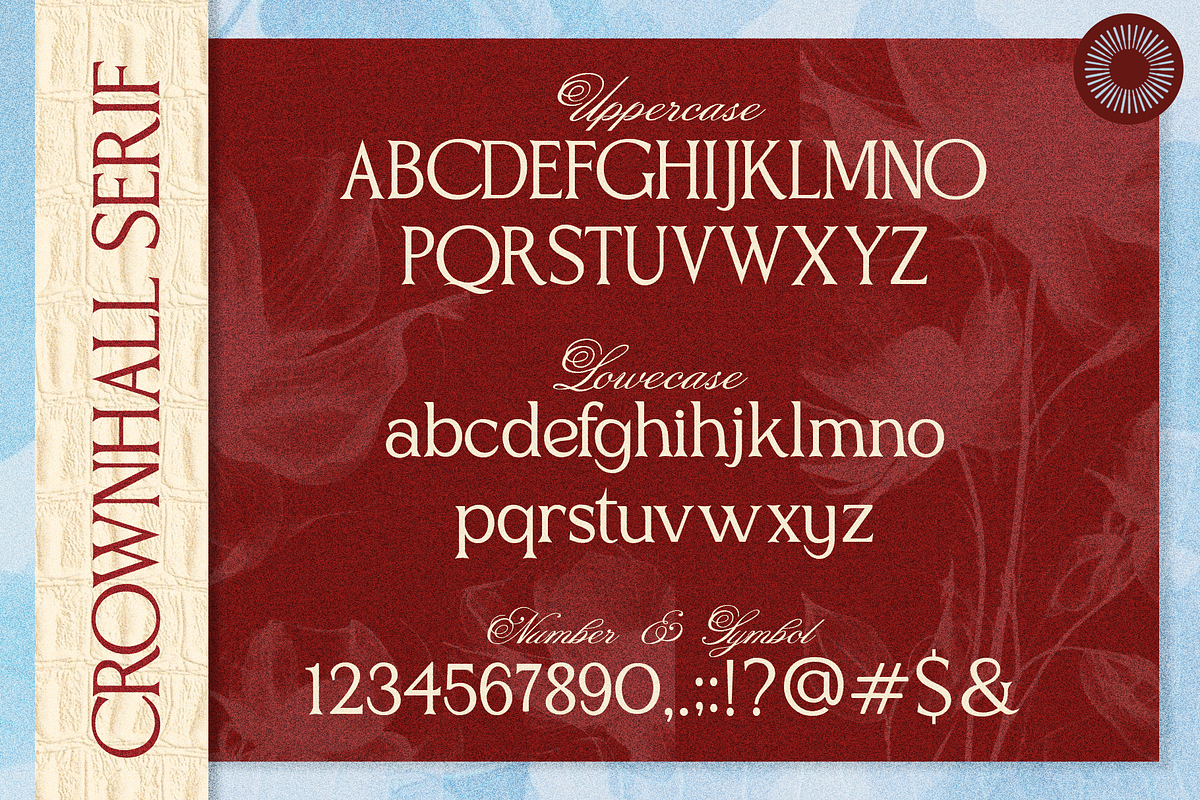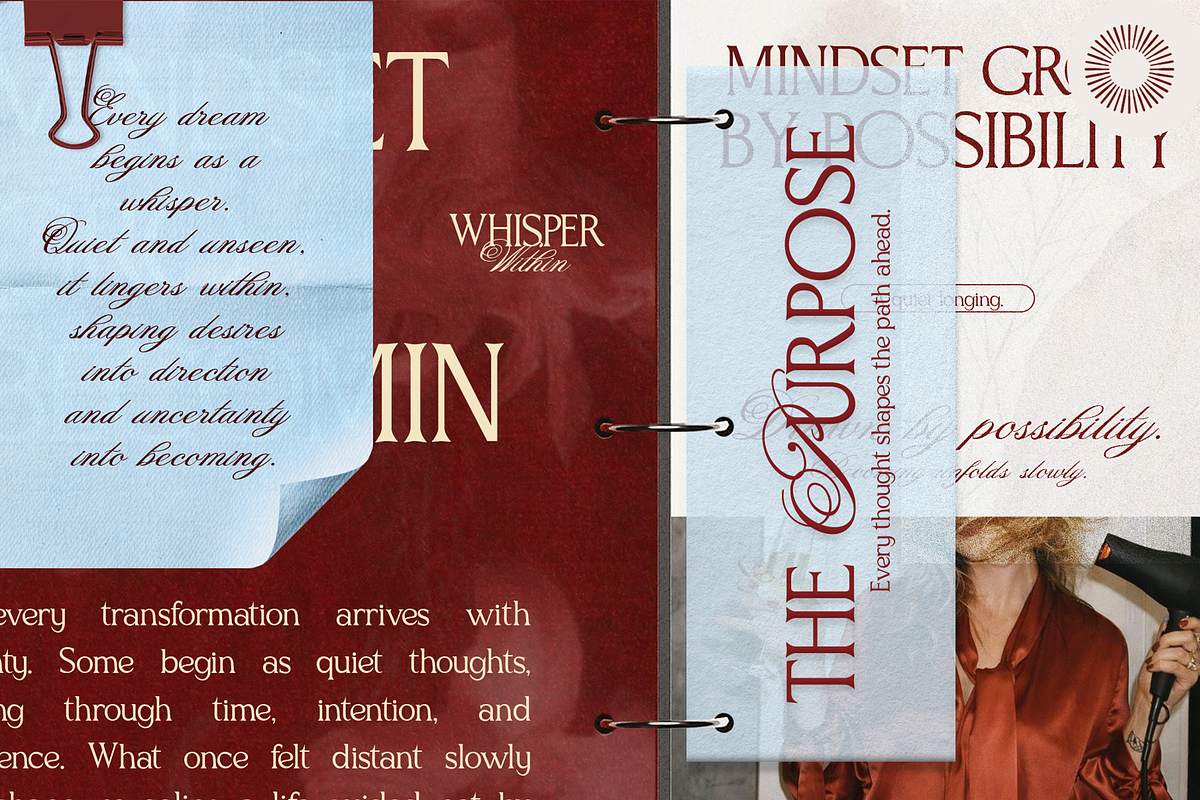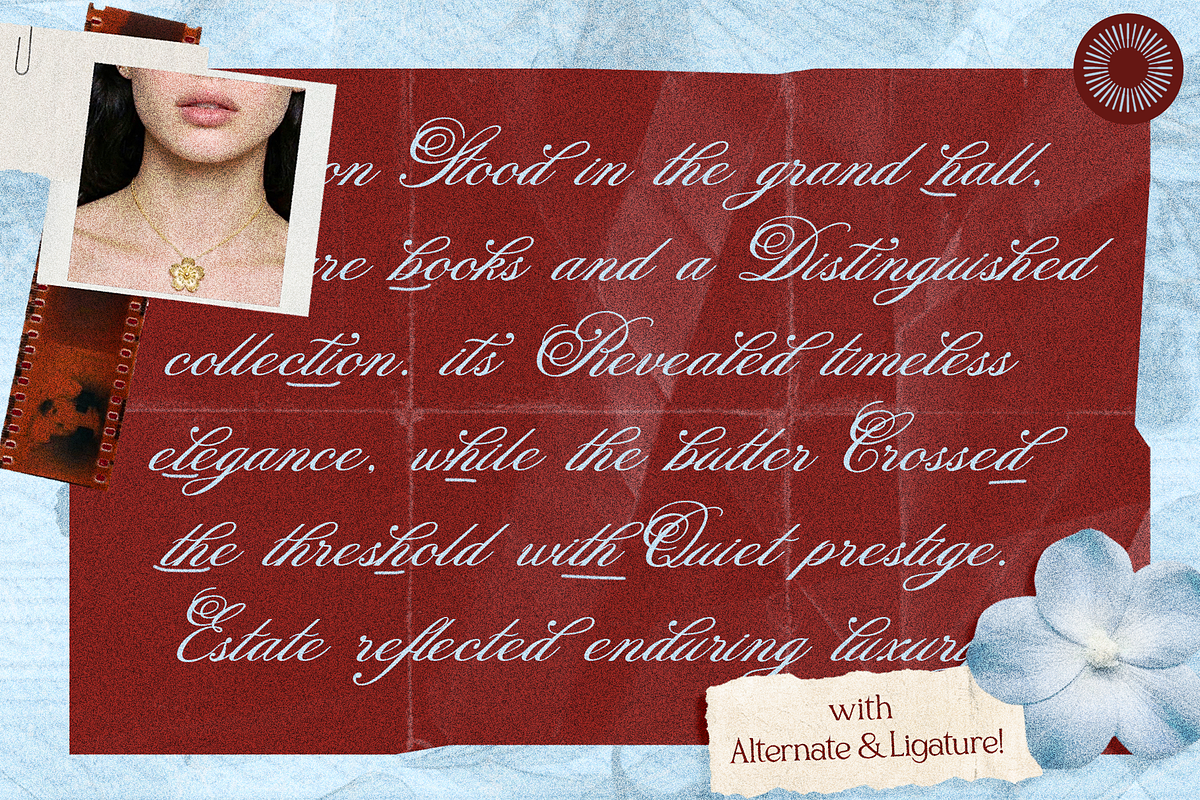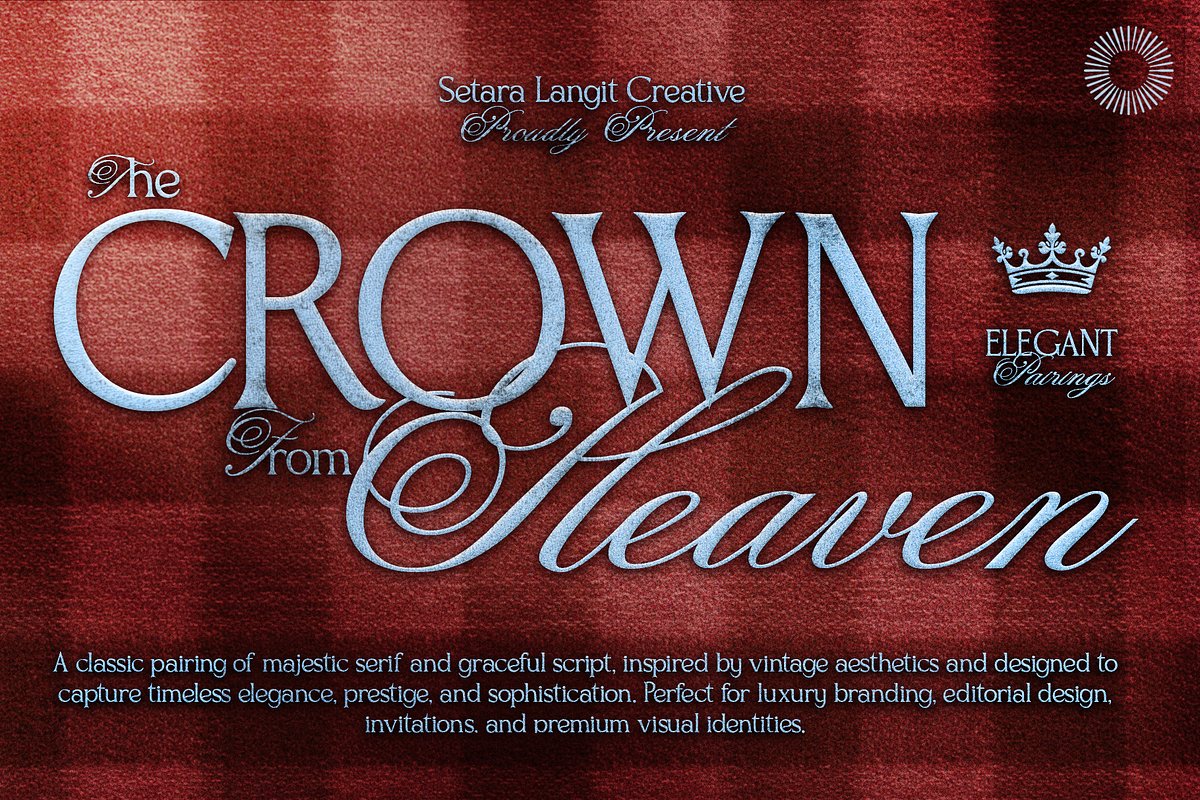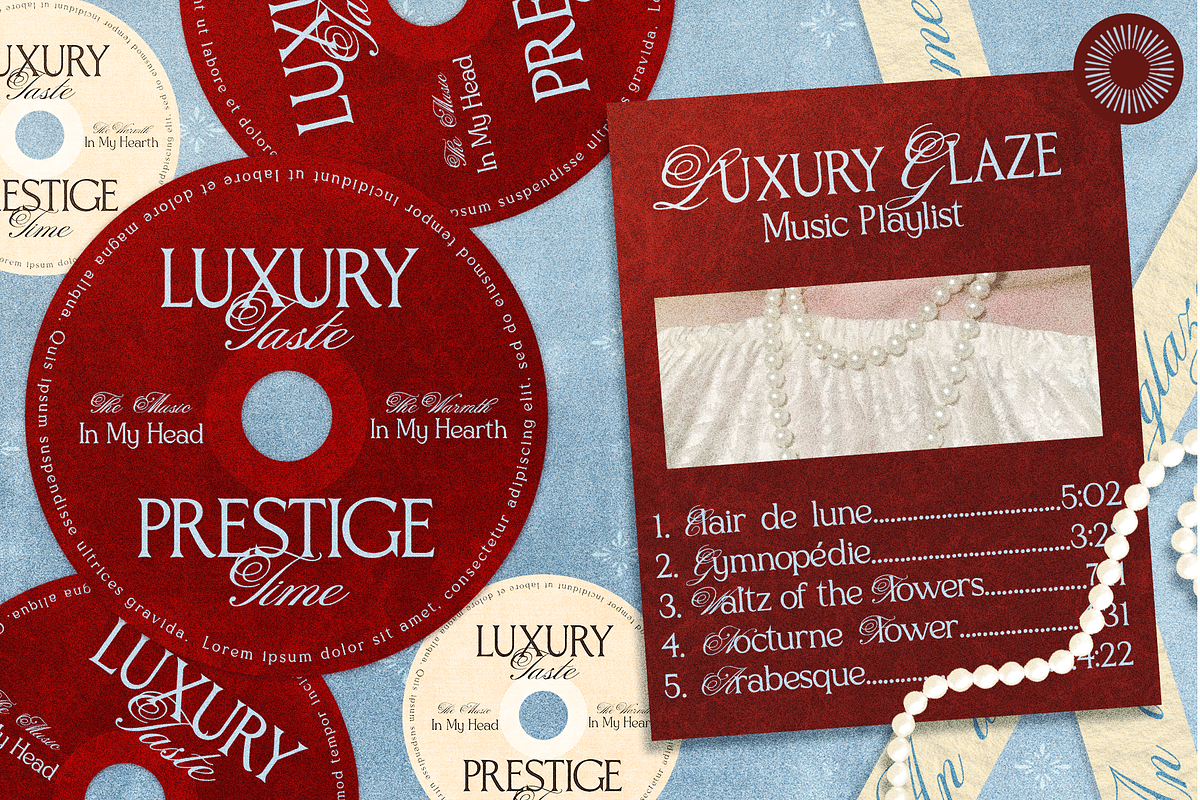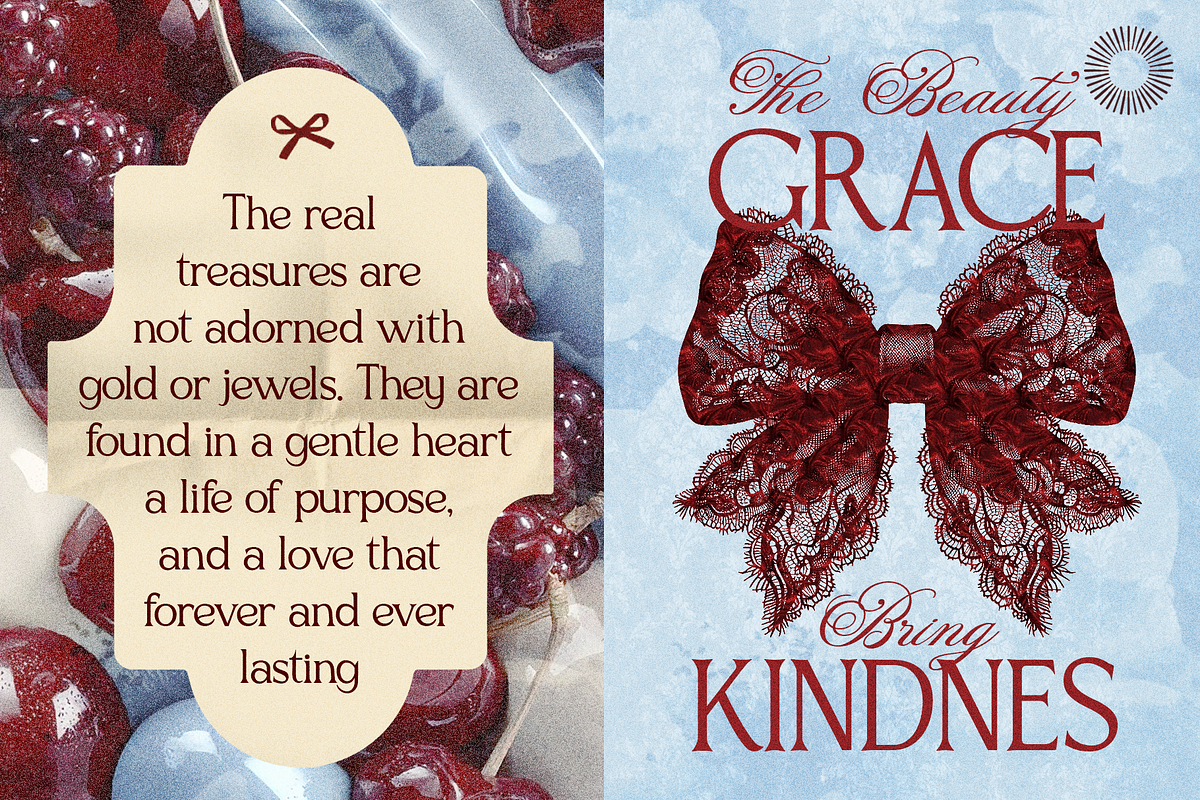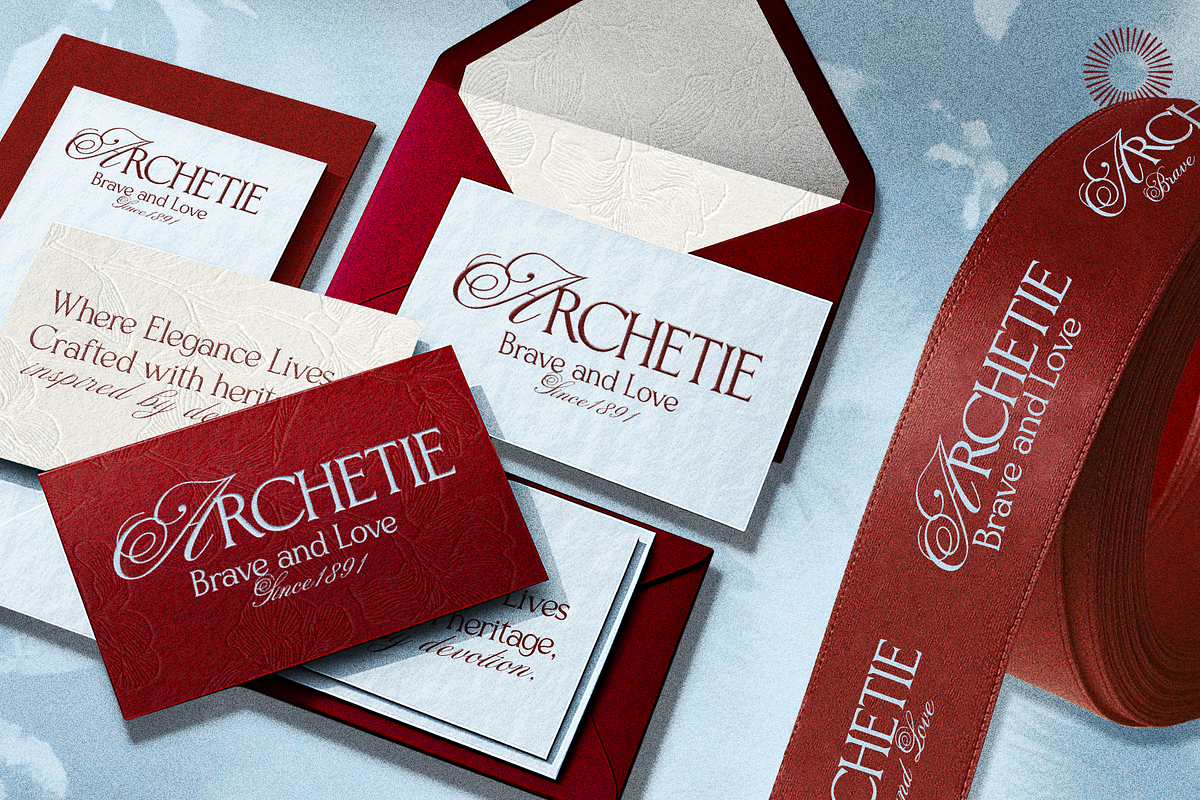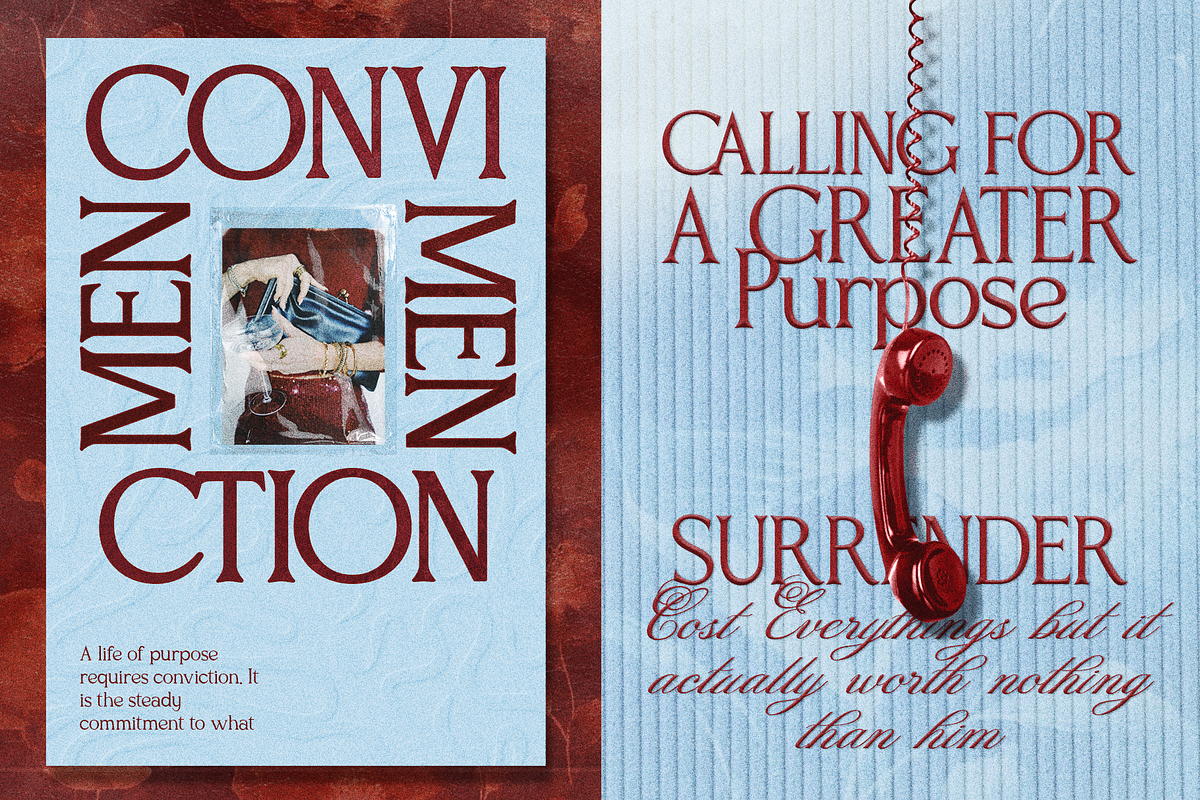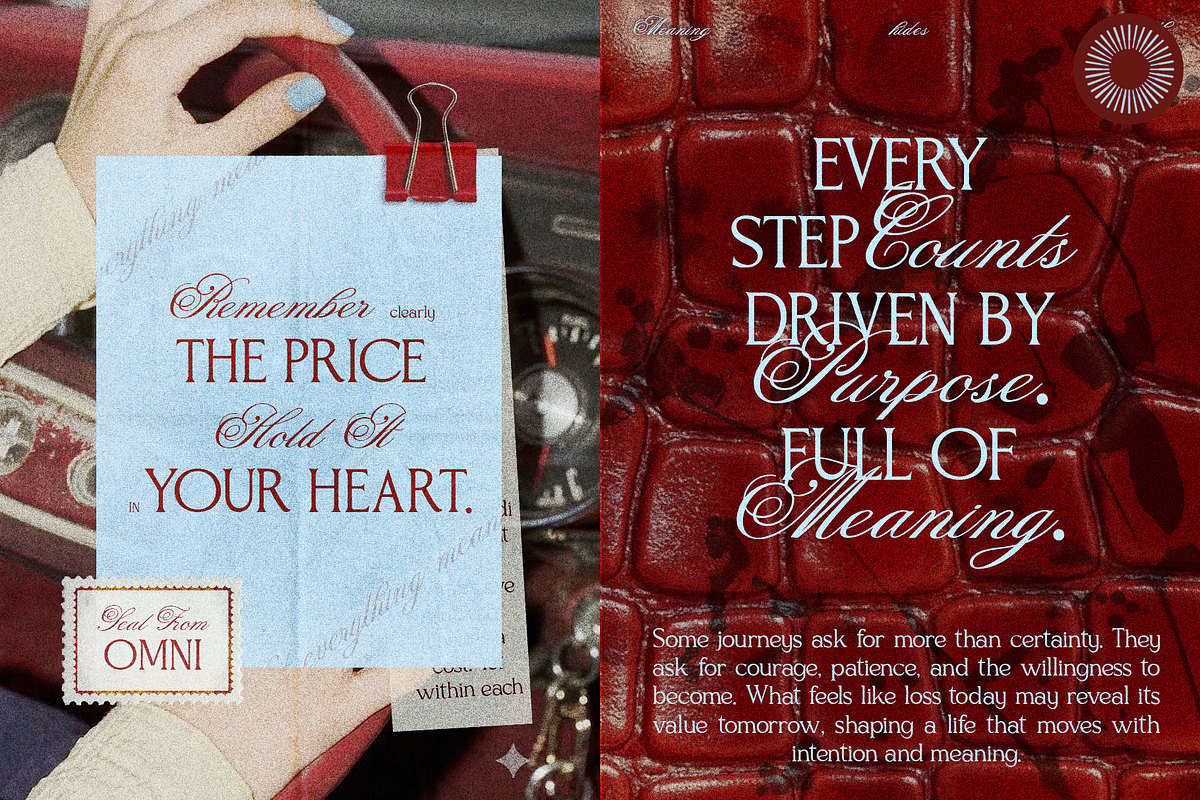
Crown | Script & Serif Font Duo
Crown Heaven is a refined font duo that pairs an elegant serif with a graceful luxury script, created for timeless branding and sophisticated design. Inspired by classic editorials, fine craftsmanship, and heritage luxury, this pairing delivers a harmonious balance of strength, refinement, and elegance.
The serif offers confident structure and exceptional readability, while the flowing script introduces graceful movement and luxurious personality. Together, they create a versatile combination that feels equally at home in premium branding, editorial layouts, luxury packaging, and wedding stationery.
Whether you're designing for fashion labels, jewelry brands, boutique hotels, cosmetics, or high-end visual identities, Crown Heaven brings lasting elegance and elevated character to every project.